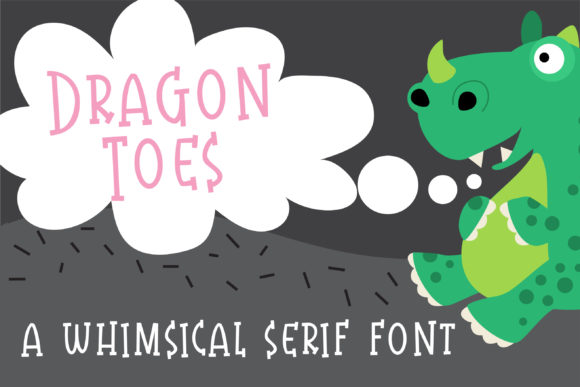
Behold, ZP Dragon Toes Font, a whimsical and unique serif font that dances and twirls across your designs, bringing your words to life!
This remarkable creation from Illustration Ink is a playful blend of tradition and modernity, a font that pays homage to the artistry of handwritten script while embracing the crisp, clean lines of the digital age. With its intricate strokes and a hint of mischievous charm, ZP Dragon Toes is the perfect choice for adding a touch of personality to any project.
Like a master storyteller, ZP Dragon Toes weaves a tale of wonder and delight with every word it forms. Its carefully crafted curves and flourishes evoke a sense of joy and creativity, making it ideal for projects that aim to capture hearts and minds. Whether you're creating invitations, greeting cards, posters, or social media graphics, ZP Dragon Toes will transform your words into captivating works of art.
But it's not just about beauty; ZP Dragon Toes is also a remarkably versatile font. Its ability to blend seamlessly with a wide range of styles makes it a must-have in any designer's toolkit. From elegant wedding invitations to vibrant children's books, from corporate presentations to eye-catching marketing campaigns, ZP Dragon Toes adapts effortlessly to your creative vision.
With ZP Dragon Toes, the possibilities are endless. Unleash your imagination and watch as your words take on a life of their own, captivating your audience and leaving a lasting impression. So, dive into the world of ZP Dragon Toes and let your creativity soar!